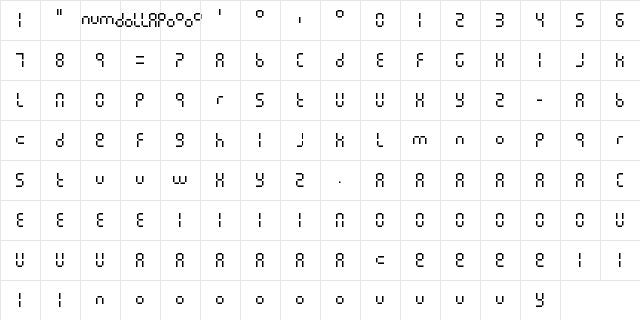
Pixel lcd machine Regular
Pixel lcd machine celebrates the constraints of early digital type, turning pixel geometry into a distinctive and immediately recognisable style.
A natural choice for retro game titles, chiptune music branding, 8-bit UI, and digital nostalgia projects.